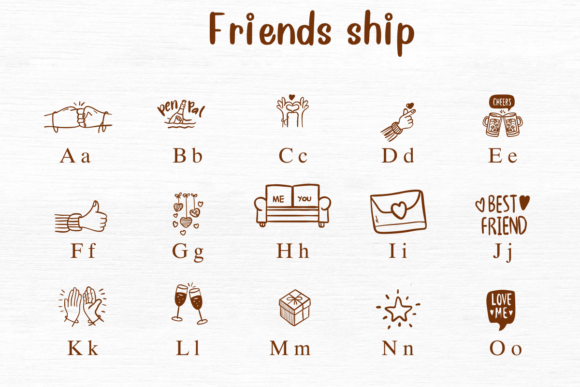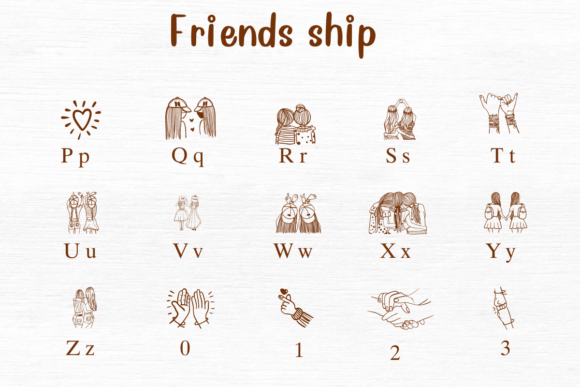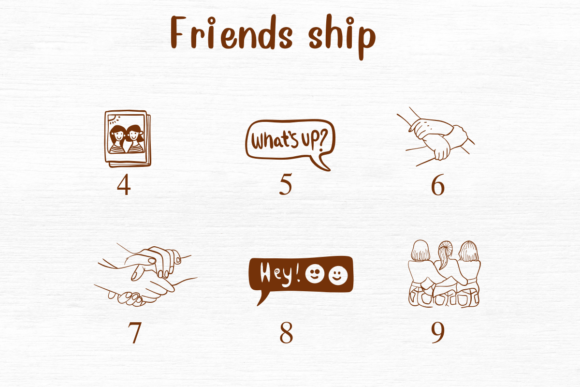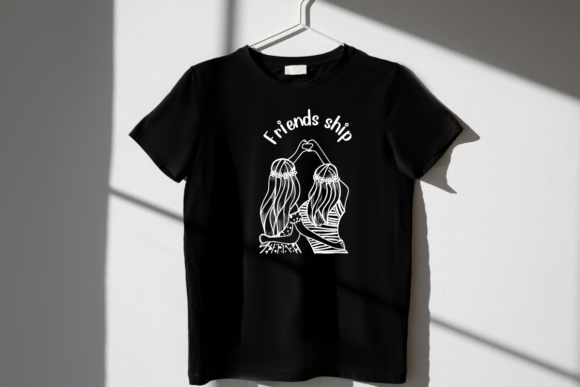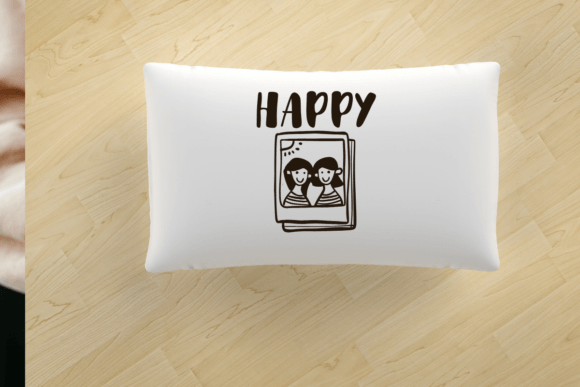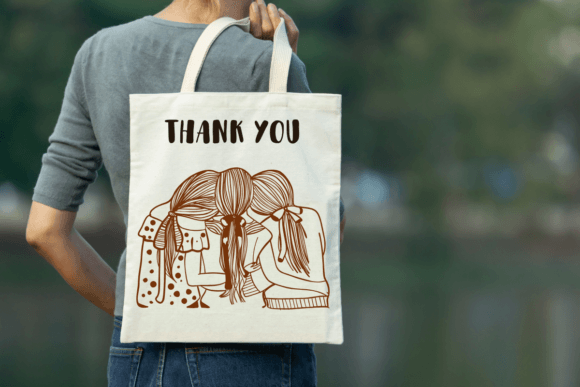
Introducing Friends Ship Font: The Ultimate Symbol for Best Friends
Are you looking for a fun and playful way to represent your friendship in your designs? Look no further than the Friends Ship Font, a delightful dingbat font filled with cute symbols that celebrate the joy of best friends (BFFs). This charming font is perfect for adding a friendly and cheerful touch to your designs, making it a must-have for designers and crafters alike.
What is Friends Ship Font?
Friends Ship Font is a unique dingbat font that features a collection of adorable symbols representing best friends. The font is designed to be fun, playful, and easy to use, making it perfect for a wide range of design projects. Whether you’re creating social media graphics, party invitations, or gift tags, Friends Ship Font is the perfect way to add a personal touch and celebrate the special bond of friendship.
Key Features of Friends Ship Font
• Fun and playful design: Friends Ship Font features a range of cute and playful symbols that are sure to bring a smile to anyone’s face.
• Perfect for BFFs: The font is specifically designed to celebrate the joy of best friends, making it the perfect choice for designs that celebrate friendship.
• Versatile: Friends Ship Font can be used for a wide range of design projects, from social media graphics to party invitations and gift tags.
Design Ideas Using Friends Ship Font
Friends Ship Font is a versatile font that can be used for a wide range of design projects. Here are a few ideas to get you started:
• Social media graphics: Use Friends Ship Font to create fun and playful social media graphics that celebrate the joy of friendship.
• Party invitations: Add a personal touch to your party invitations with Friends Ship Font, perfect for birthday parties, bridal showers, and more.
• Gift tags: Use Friends Ship Font to create adorable gift tags that celebrate the special bond of friendship.
• Stationery: Add a touch of whimsy to your stationery with Friends Ship Font, perfect for writing letters to your BFFs.
Benefits of Using Friends Ship Font
There are many benefits to using Friends Ship Font in your designs. Here are a few:
• Adds a personal touch: Friends Ship Font adds a personal touch to your designs, making them more special and meaningful.
• Unique and creative: Friends Ship Font is a unique and creative way to represent friendship in your designs, setting them apart from the rest.
Friends Ship Font is a fun and playful dingbat font that’s perfect for adding a friendly and cheerful touch to your designs. With its cute symbols representing best friends, this font is a must-have for designers and crafters alike. Whether you’re creating social media graphics, party invitations, or gift tags, Friends Ship Font is the perfect way to celebrate the special bond of friendship.